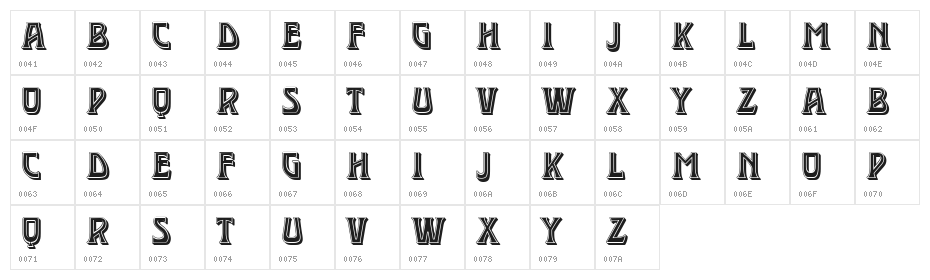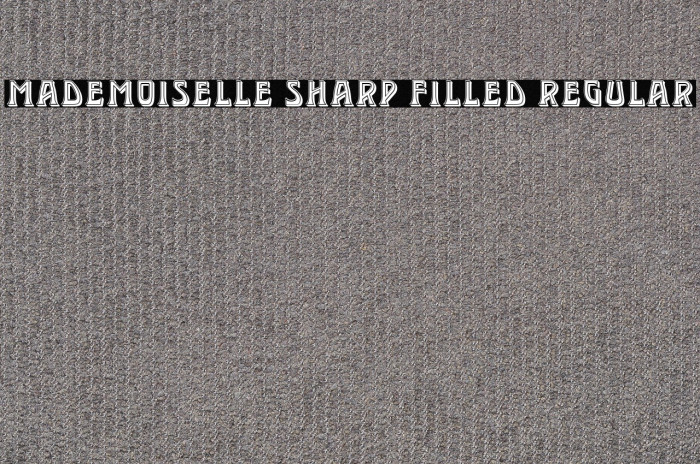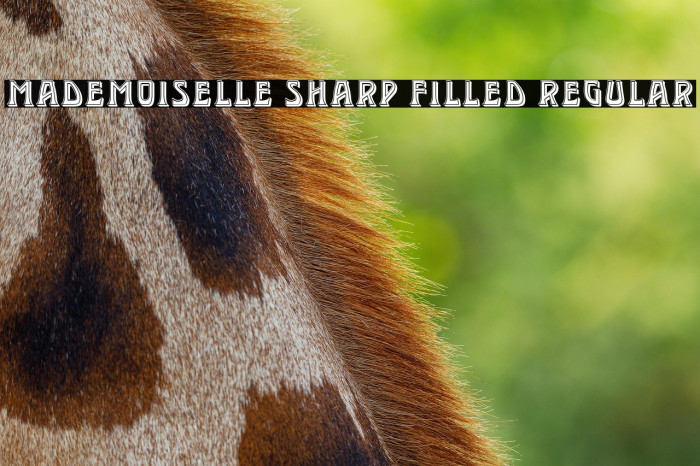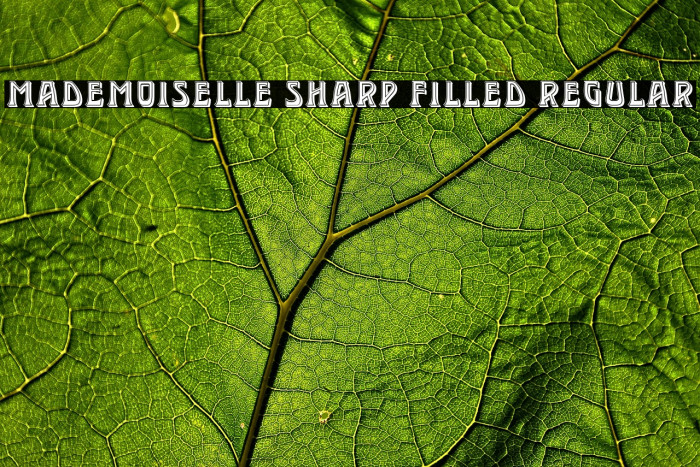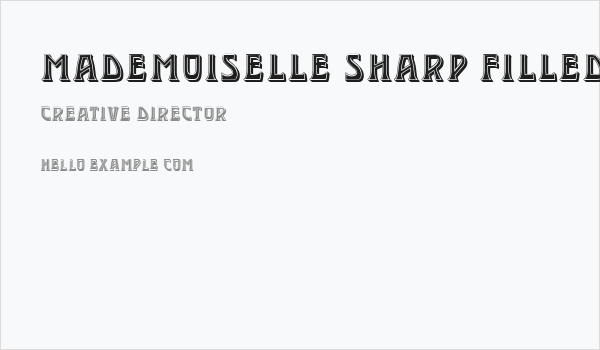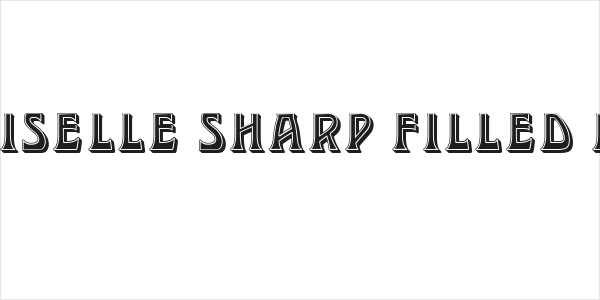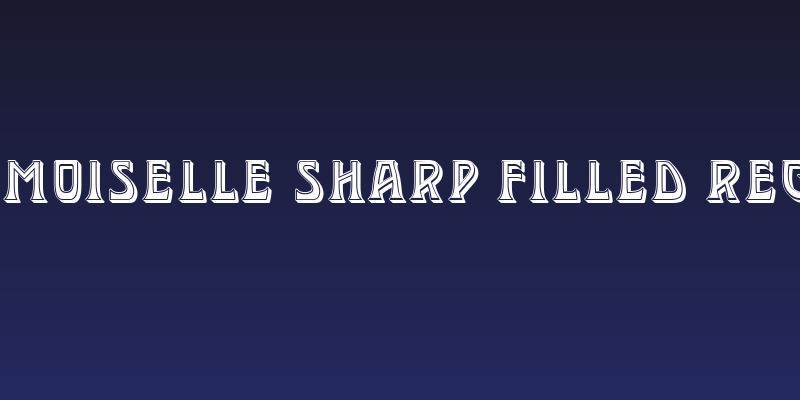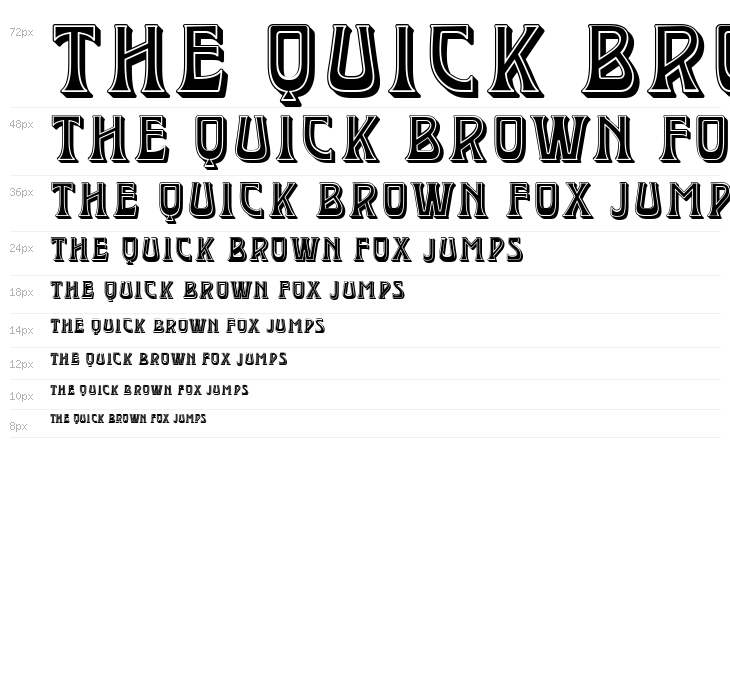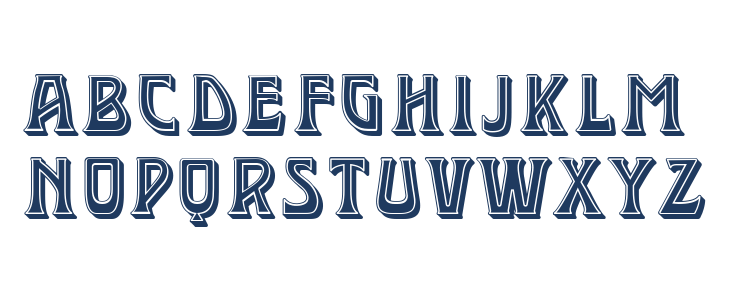
Mademoiselle Sharp Filled Regular Font
Mademoiselle Sharp Filled Regular Description
This font features a bold and striking design with sharp, angular edges and a filled interior that creates a strong visual impact. The uppercase letters are particularly prominent, with a distinct geometric style that combines both modern and vintage elements. The characters are well-defined, with a consistent thickness that adds to the font's bold appearance. The overall design is decorative, making it suitable for attention-grabbing headlines and titles. The font's unique style is reminiscent of vintage signage, yet it maintains a contemporary flair that makes it versatile for various design projects.
| Overall Style | Vintage, Modern |
| Proposed Projects | Ideal for posters, logos, branding, and any project requiring a bold, eye-catching typeface. |